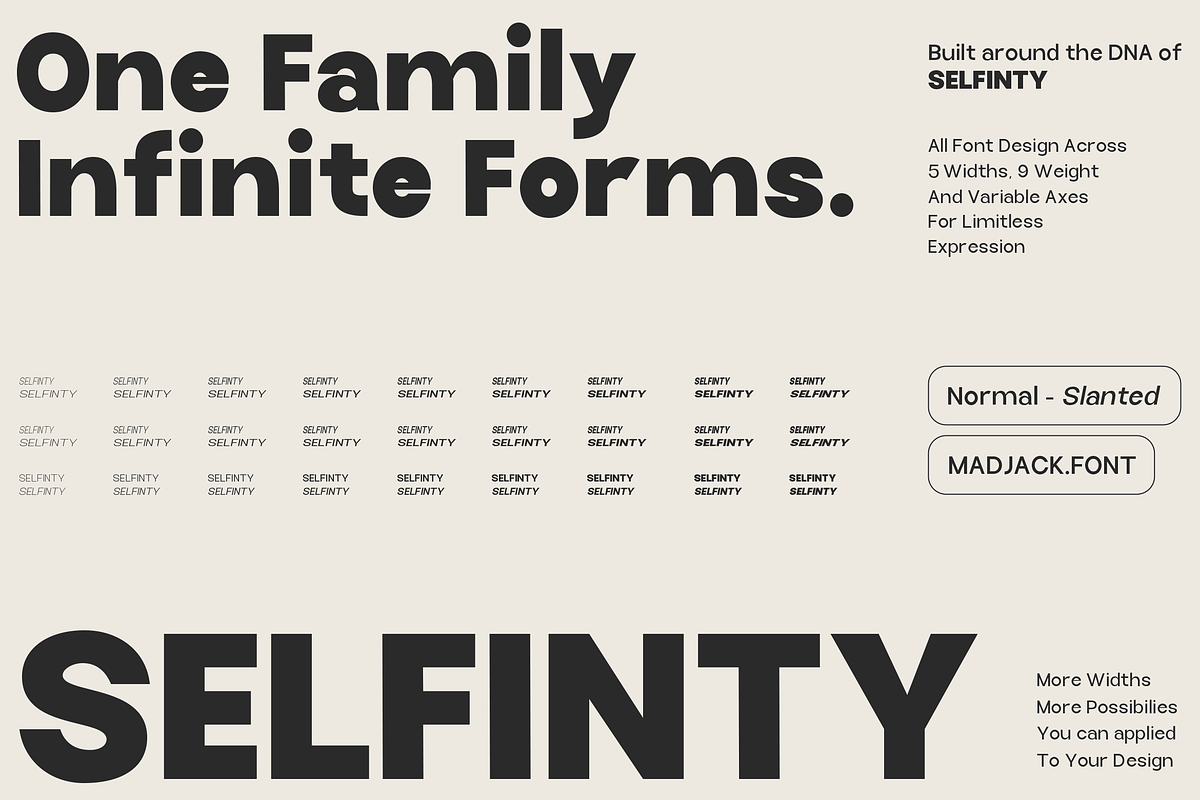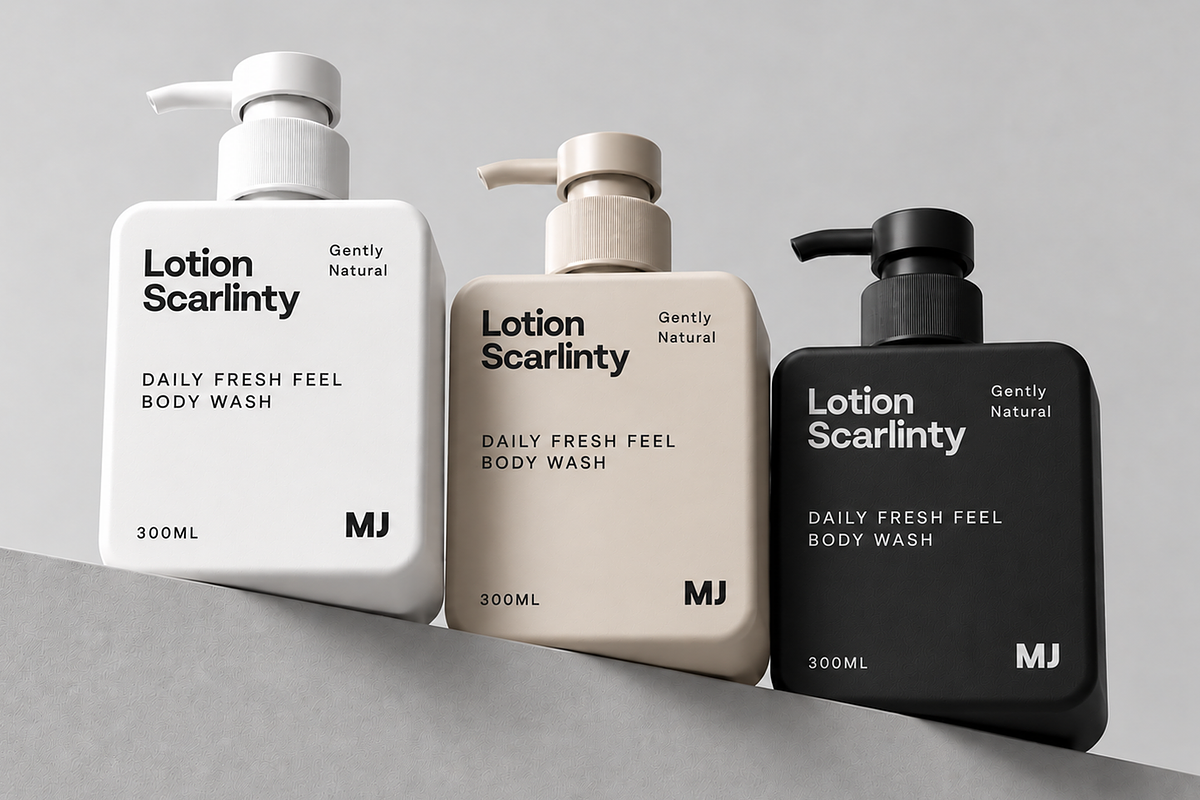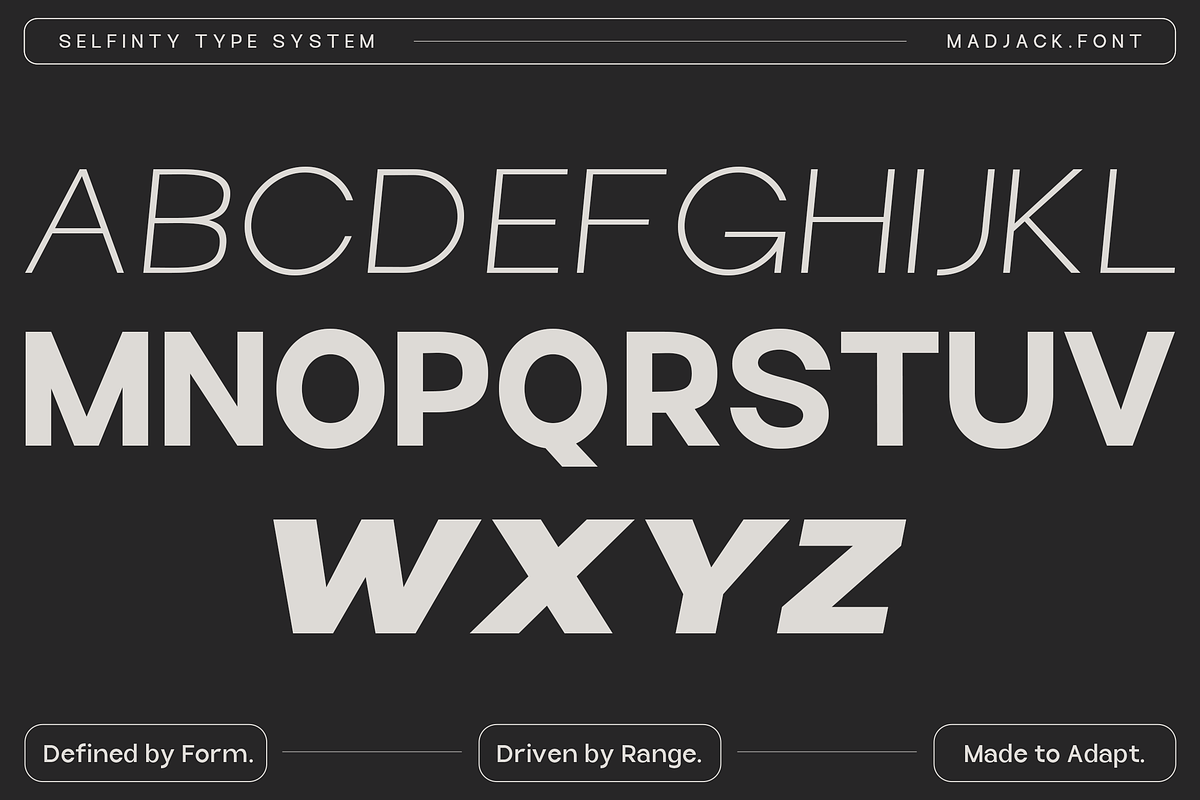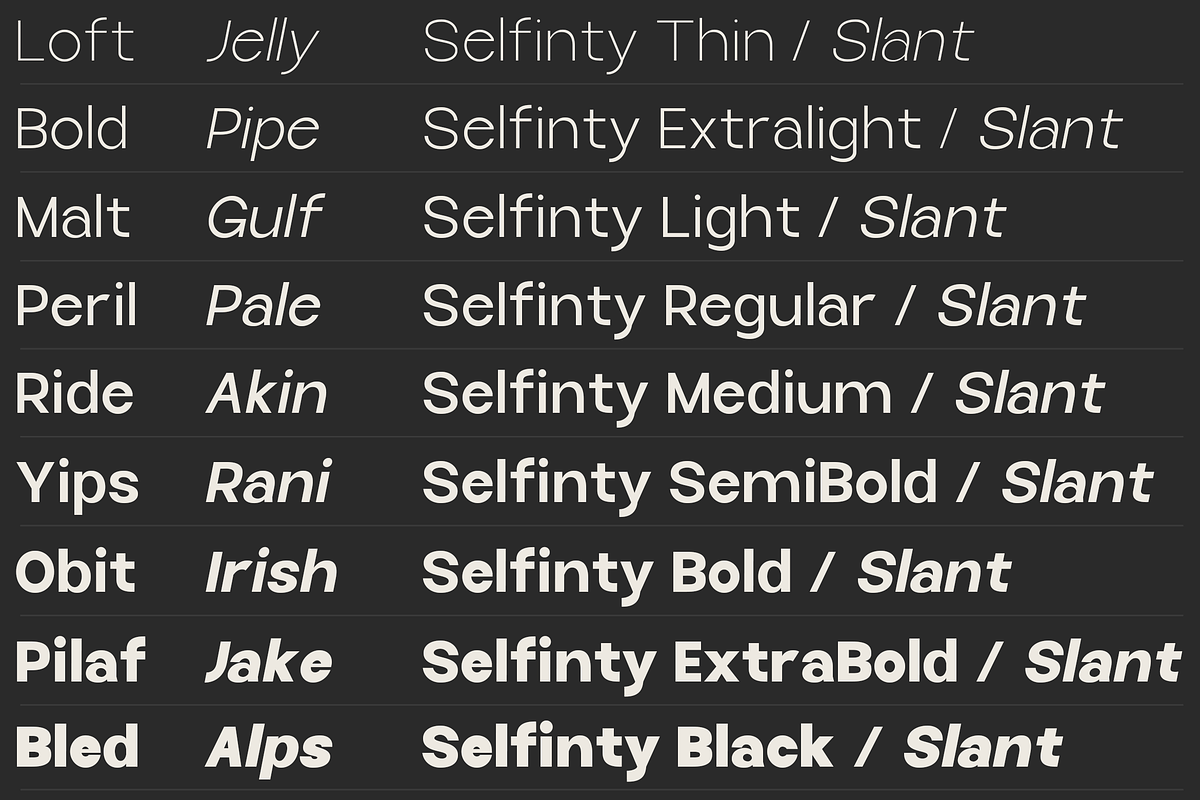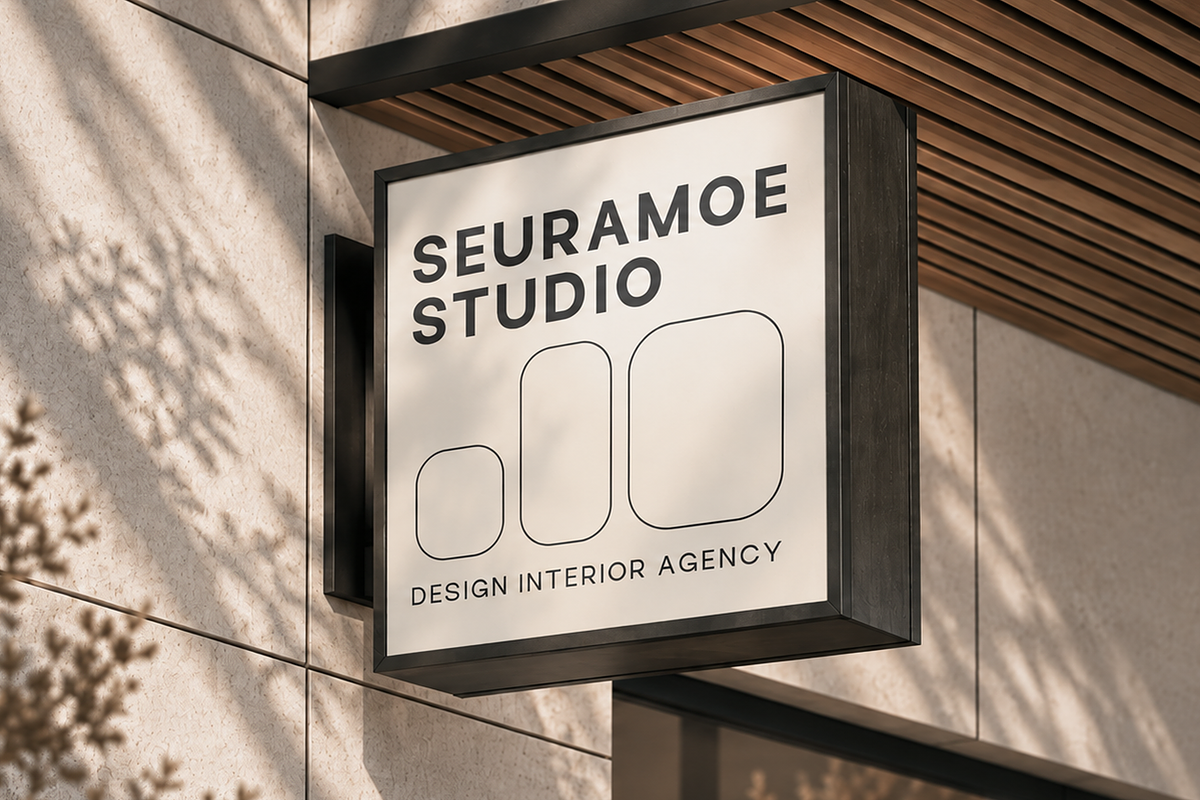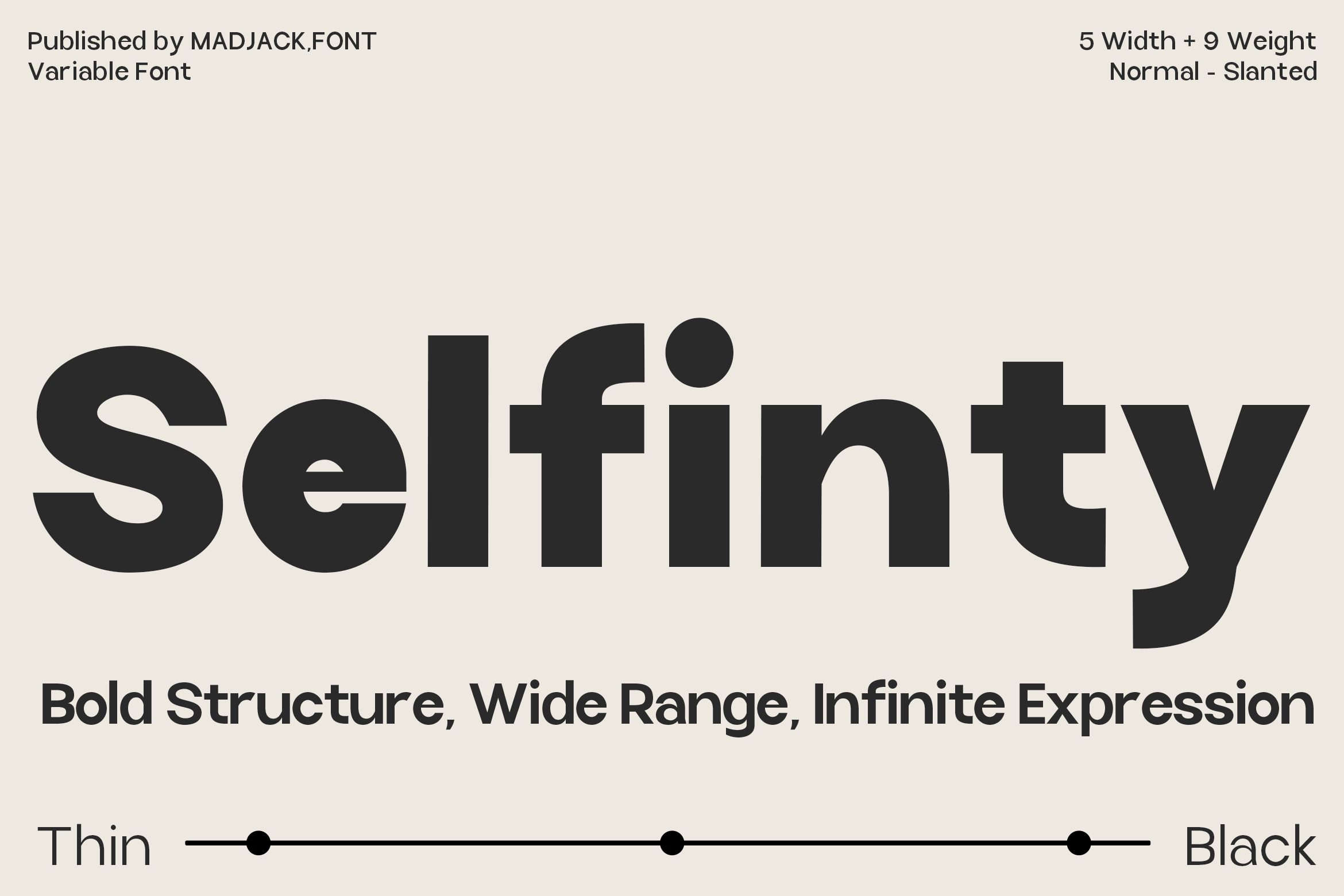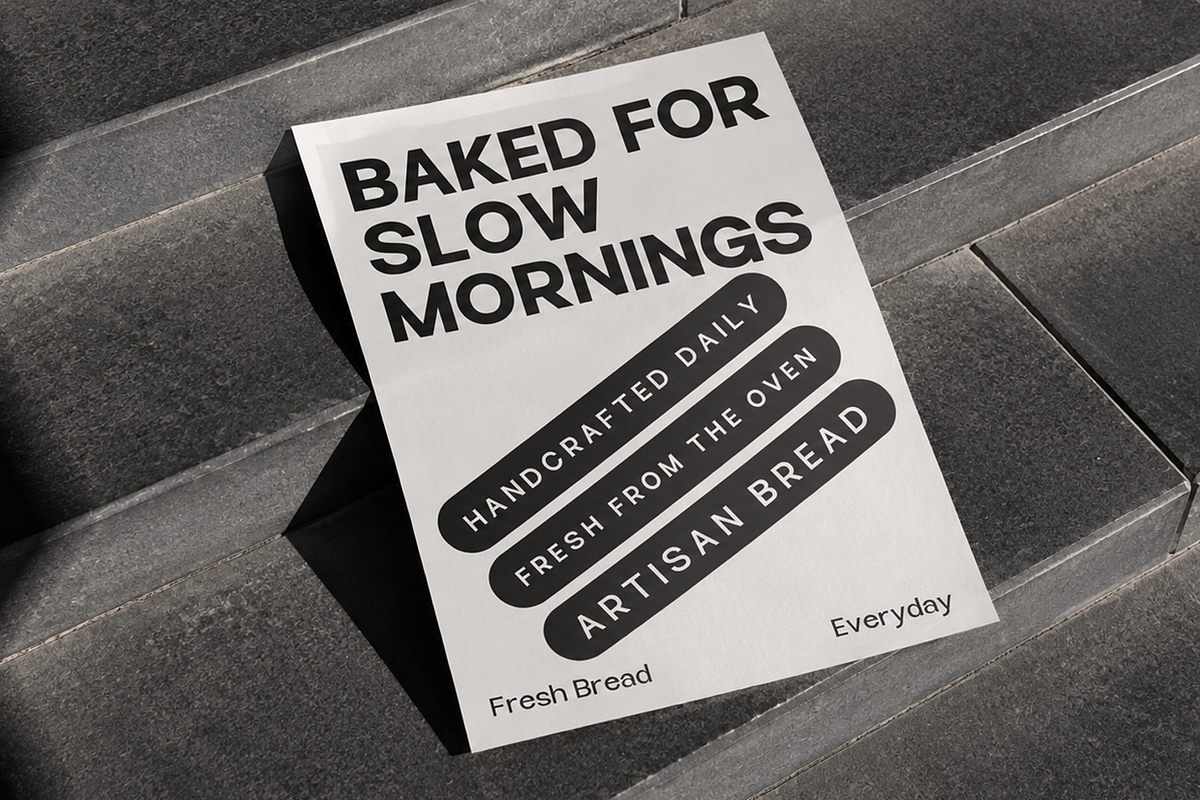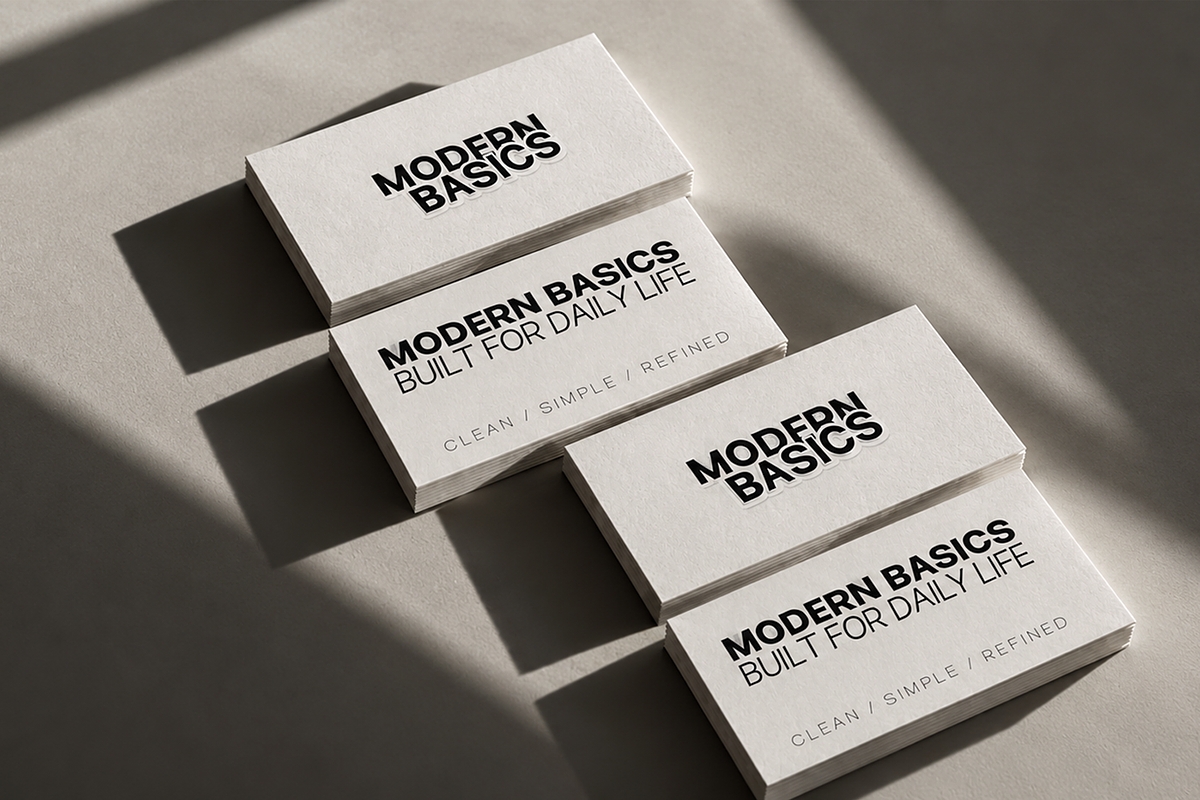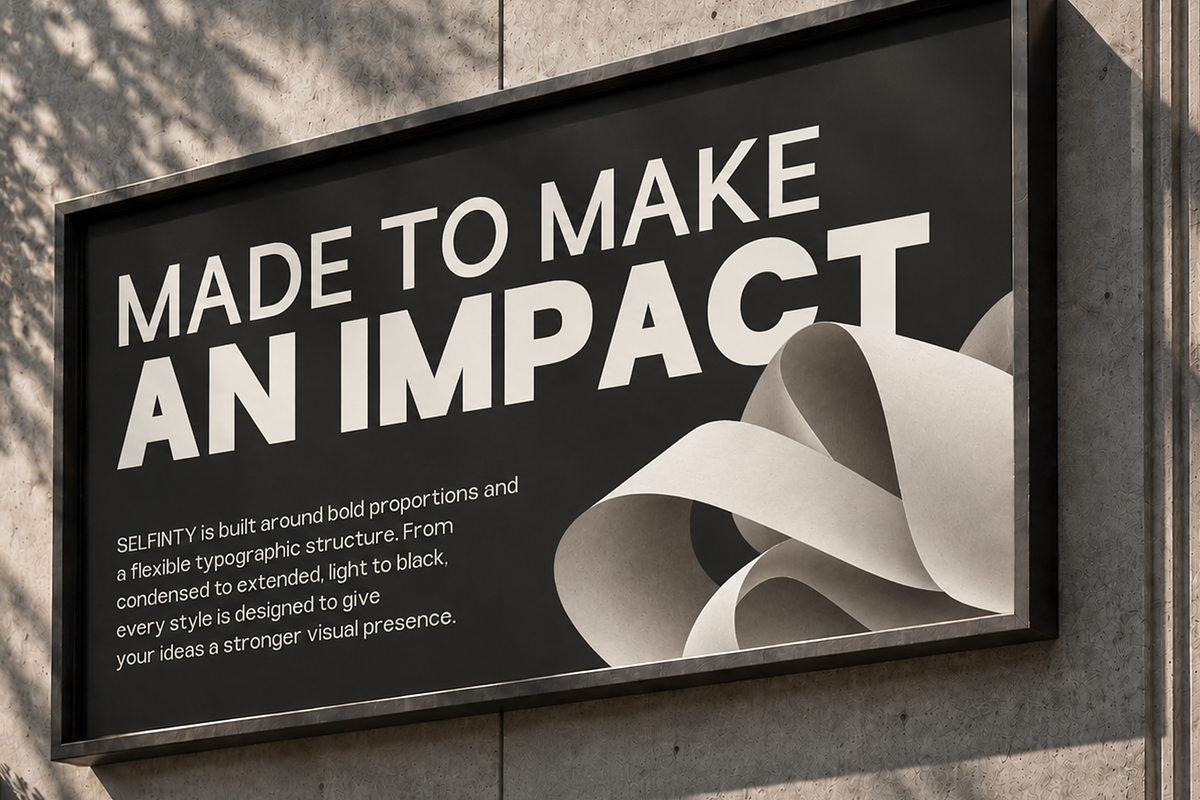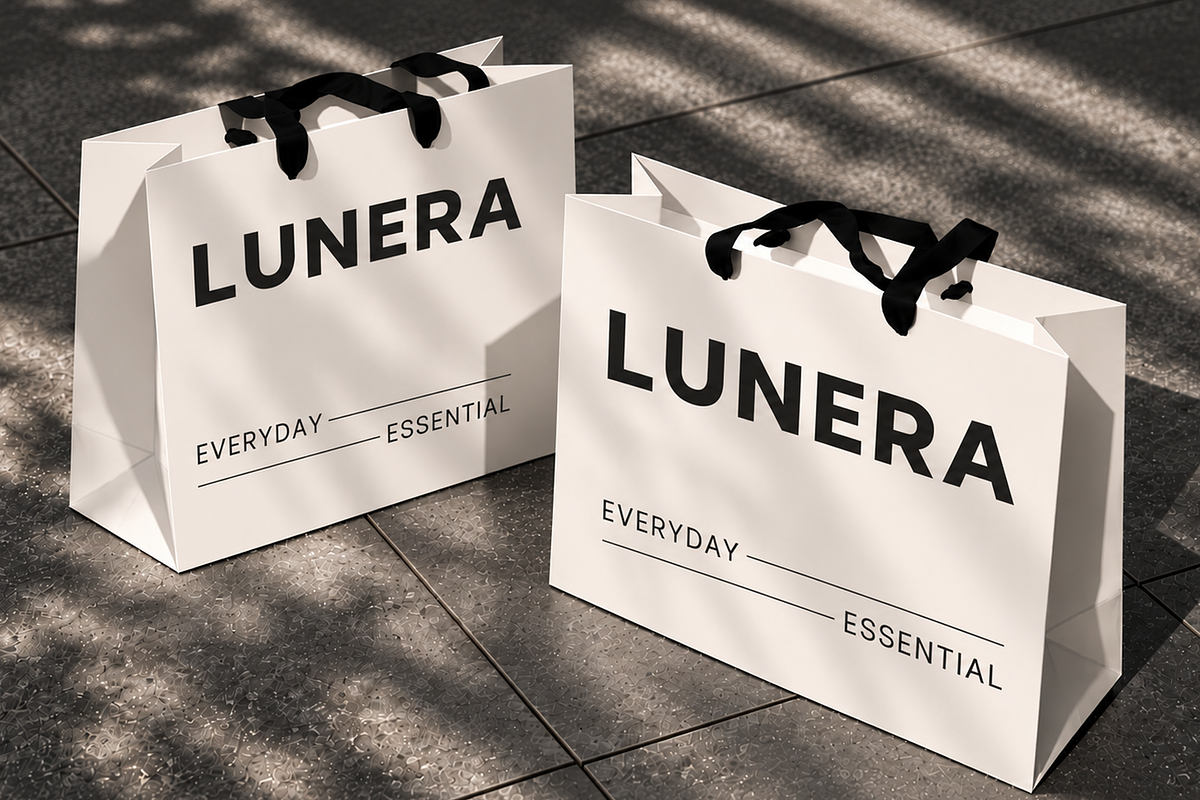
Selfinty Sans - 90 fonts + variable.
This is a modern geometric sans-serif typeface designed with bold, clean, and contemporary character. Its strong letterforms and solid proportions create a confident, powerful, and minimalist look while maintaining excellent readability.
The typeface features a versatile family with 5 width variations and 9 weight variations, resulting in up to 90 distinct styles. Options for both Normal and Slanted styles allow designers to create either stable, professional looks or more dynamic, energetic compositions. The Variable Font format also offers greater flexibility for seamlessly adjusting weight and width.
With its strong visual presence, this font is ideal for headlines, posters, branding, logos, editorial layouts, advertising, packaging, websites, and social media design. Heavier weights are highly effective for high-impact display typography, while lighter styles can create a cleaner, more elegant aesthetic.
* 5 Width Variations
* 9 Weight Variations
* 90 Styles
* Normal & Slanted
* Variable Fonts
* Modern geometric sans-serif
* Bold and distinctive letterforms
* Clean and highly legible
* Perfect for display typography and branding
Overall, this is a flexible and robust font family that blends modern aesthetics with a wide range of styles, making it suitable for everything from bold visual statements to clean, contemporary designs.